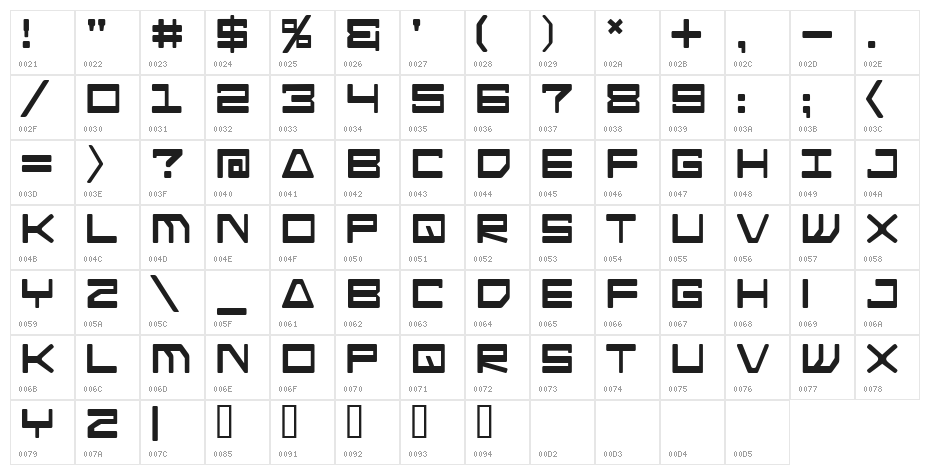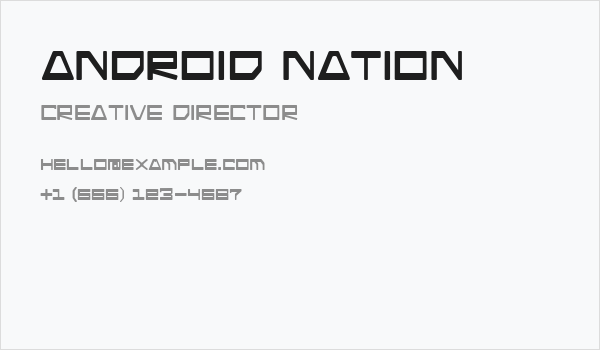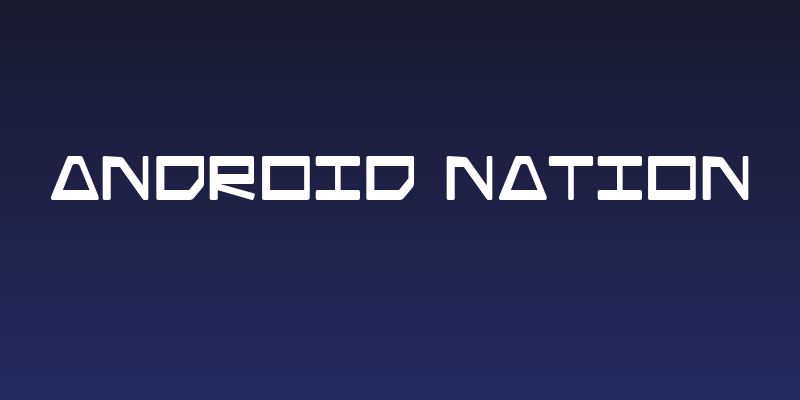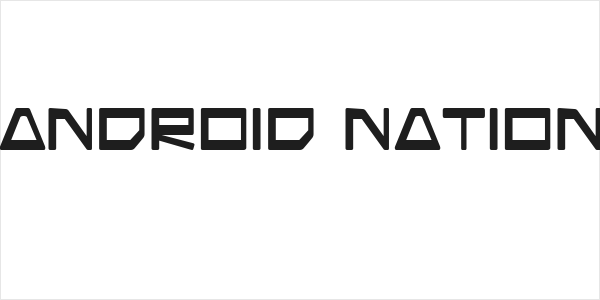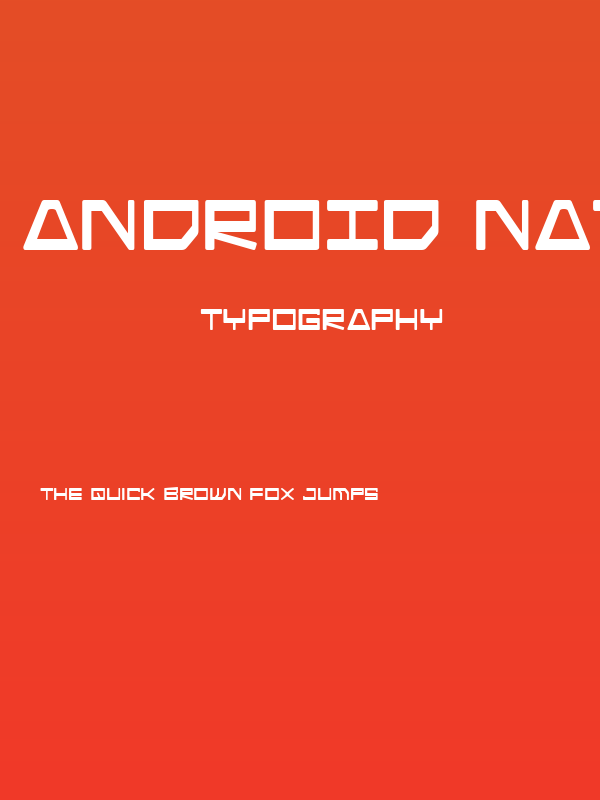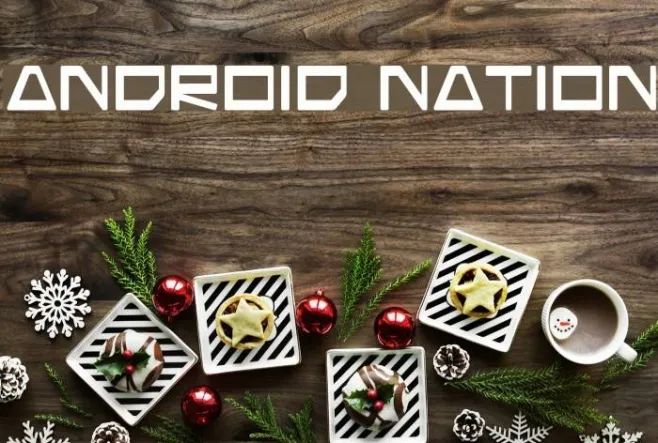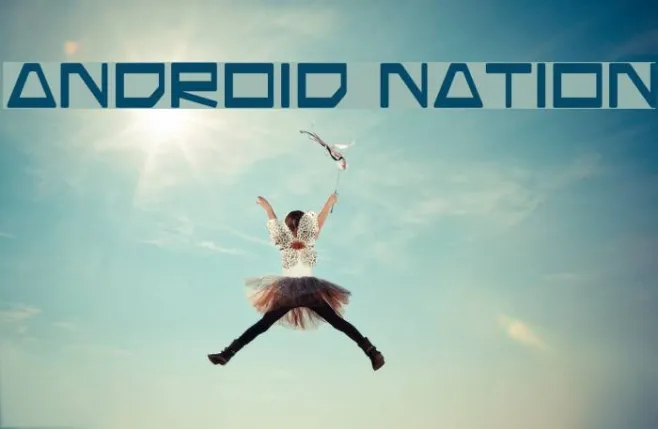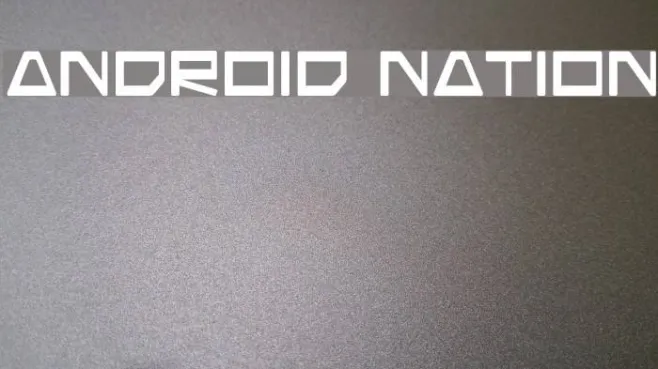
Android Nation Font
Android Nation Description
This font features a futuristic and geometric design with a distinct angular appearance. The characters are constructed with straight lines and sharp angles, giving it a digital and modern aesthetic. The uppercase and lowercase letters maintain a consistent style, with a uniform height and width that enhances readability. The numerals and special characters follow the same design principles, ensuring a cohesive look across all elements. Its bold and structured form makes it suitable for projects that require a strong visual impact.
| Use Case | Headlines, Logos, Digital Interfaces |
| Proposed Projects | Ideal for technology branding, sci-fi movie posters, video game titles, and digital interfaces. |